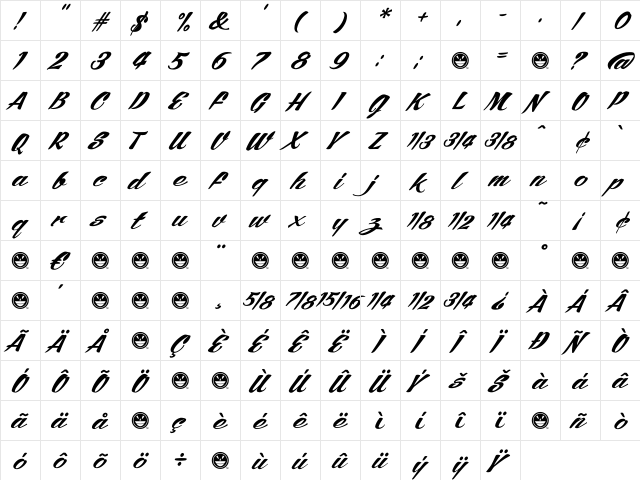
Design Context for SCRIPT1 ARB245 Bold Spenceria Typeface
SCRIPT1 ARB245 Bold Spenceria flows with the natural rhythm of handwritten lettering, making it ideal for designs that call for warmth and personal expression. The heavy weight commands attention and anchors typographic hierarchies.
Font Pairing: Combine SCRIPT1 ARB245 Bold Spenceria with a simple geometric sans for maximum contrast — the tension between flowing curves and clean structure is a classic typographic pairing.
Pro Tip: Pair SCRIPT1 ARB245 Bold Spenceria with a clean sans-serif for supporting text. The contrast between fluid script and geometric structure creates an elegant typographic hierarchy.